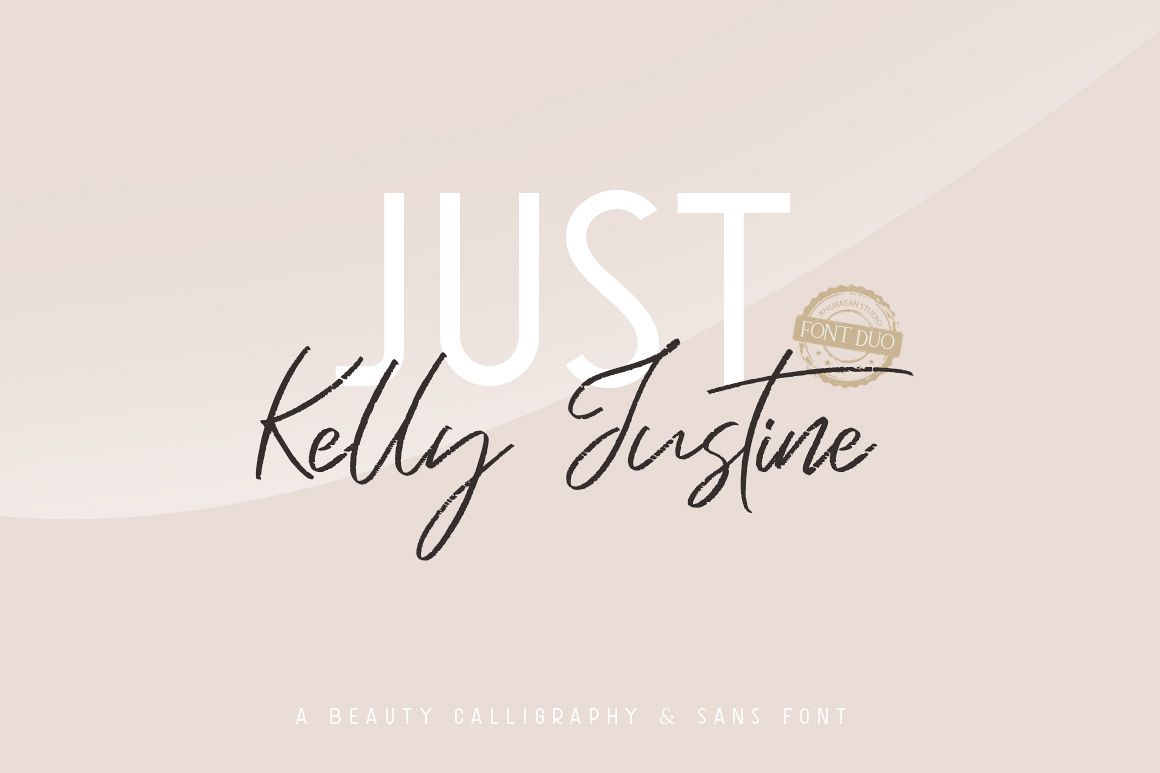
Just Kelly Justine Font Duo
The Just Kelly Justine font is a modern font with two different styles, signature & sans + swash. Just Kelly Justine font it’s perfect for , poster, logo, magazine, cover, banner, tshirt and headers, or even large-scale artwork.